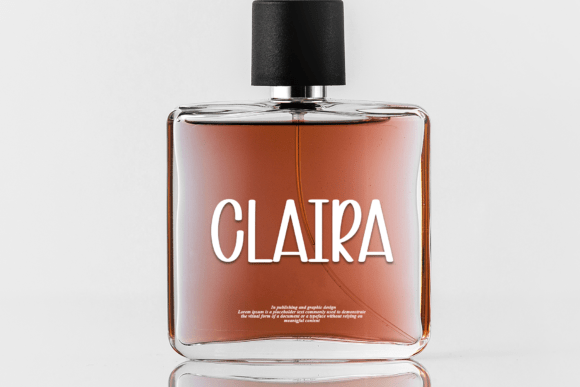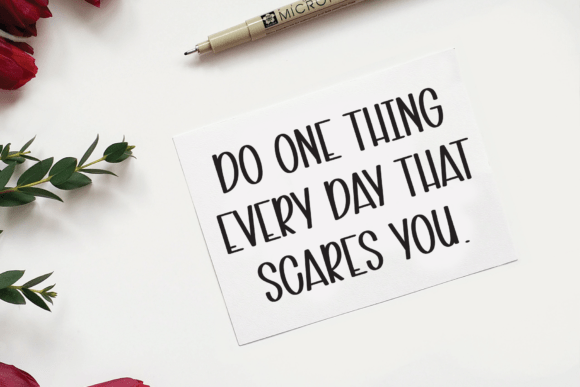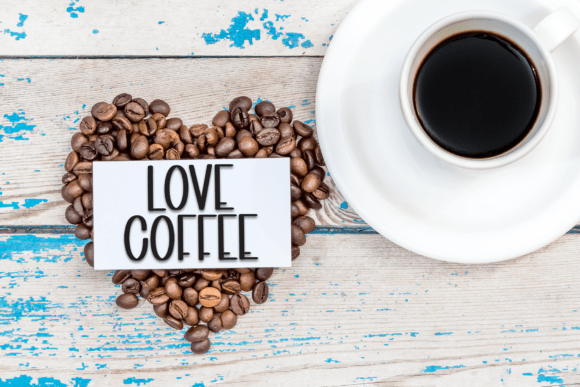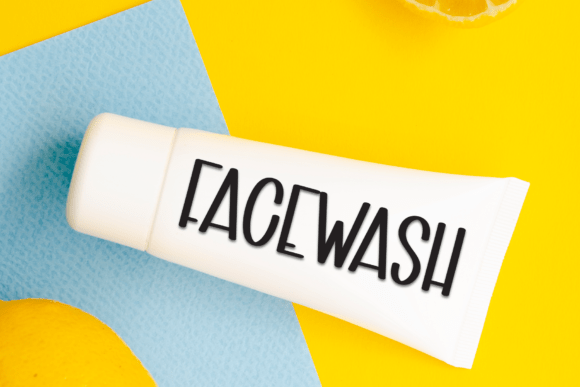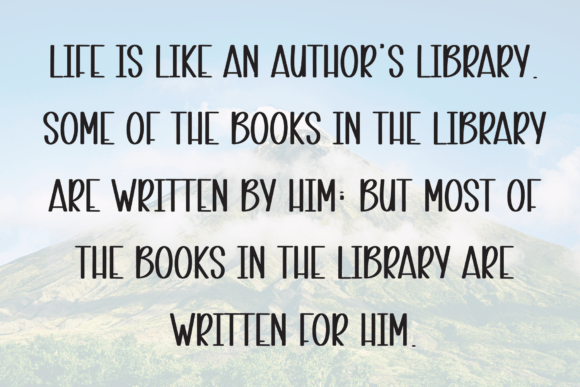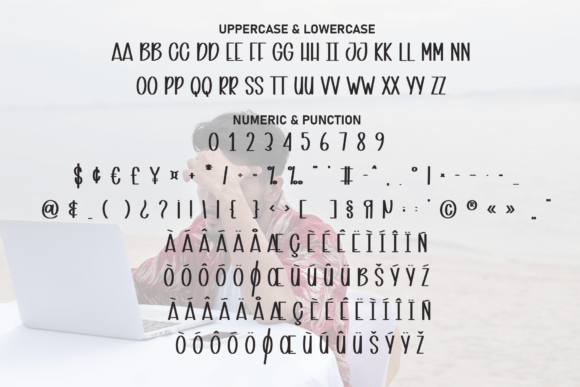
Introduction to Nothing Vacation Font
There’s something magical about stumbling upon the perfect font for a project. You’re in the middle of a design session, scrolling through font options, and suddenly, it clicks. The words come alive, and the message shines through. This is exactly what happened when I discovered the Nothing Vacation Font. Its clean lines, rounded edges, and approachable vibe instantly captured my attention, and I knew I had to share it with fellow designers.
As a valuable design resource, the Nothing Vacation Font is a game-changer for any creative project. With its high-quality structure and transparent background, it’s perfect for branding, packaging, and digital content. And the best part? It’s available for a free download, making it an accessible addition to any design arsenal.
Whether you’re working on a personal or professional project, the Nothing Vacation Font is sure to deliver clarity and charm in equal measure. Its versatility and polished finish make it an excellent choice for designers looking to add a touch of warmth and invitation to their work.
Key Features of Nothing Vacation Font
- Unique, modern font with a transparent background, perfect for adding a touch of elegance to any design.
- Designed to be highly legible, with a clear and crisp appearance at various font sizes (up to 72pt).
- Resolution-independent, making it suitable for use in both print and digital design applications.
- Available in a range of weights and styles, allowing for versatility in design projects.
Honest Review: Nothing Vacation Font
I recently stumbled upon the Nothing Vacation Font, and I have to say, it’s been a great addition to my design resource library. The font is a high-quality, modern sans-serif that’s perfect for creative projects.
- ✨ The transparent background makes it easy to use on any design background.
- ✨ The font is highly legible, even at small sizes.
- ⚠️ The font only comes in a single weight, which may limit its use in certain designs.
- ⚠️ Some users may find the font too modern or trendy, which may not be suitable for all design projects.
Overall, I’m really impressed with the Nothing Vacation Font. It’s a great resource for designers looking for a high-quality, free font that’s perfect for creative projects. I would definitely recommend it to anyone looking to add some modern flair to their designs.
To get the most out of the Nothing Vacation Font, use it in creative projects that require a fun and playful tone. This font is perfect for designing invitations, social media graphics, and promotional materials. Experiment with different font sizes, colors, and alignments to add visual interest to your design.
The Nothing Vacation Font is commonly used in designs that require a carefree and adventurous tone. This font is perfect for:
- Travel and tourism websites
- Social media graphics for travel influencers
- Invitations for outdoor events
- Branding materials for adventure sports
Yes, the Nothing Vacation Font is designed to work well with transparent backgrounds. Since it has a transparent background, you can easily place it over any image or design element without any issues. This makes it perfect for creating stunning designs with a touch of elegance.